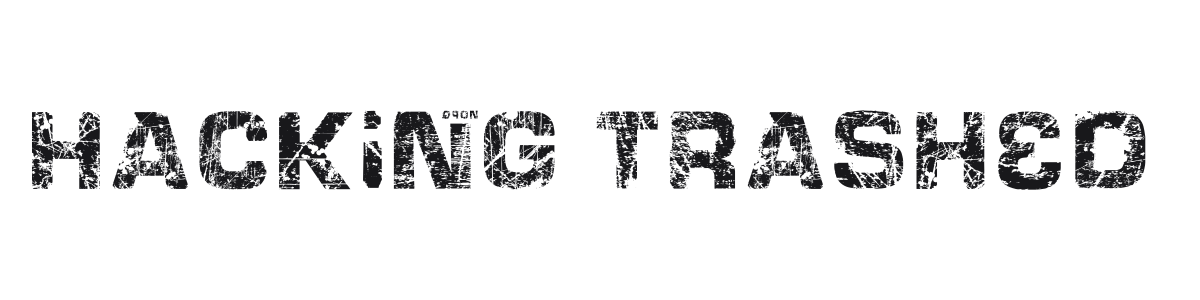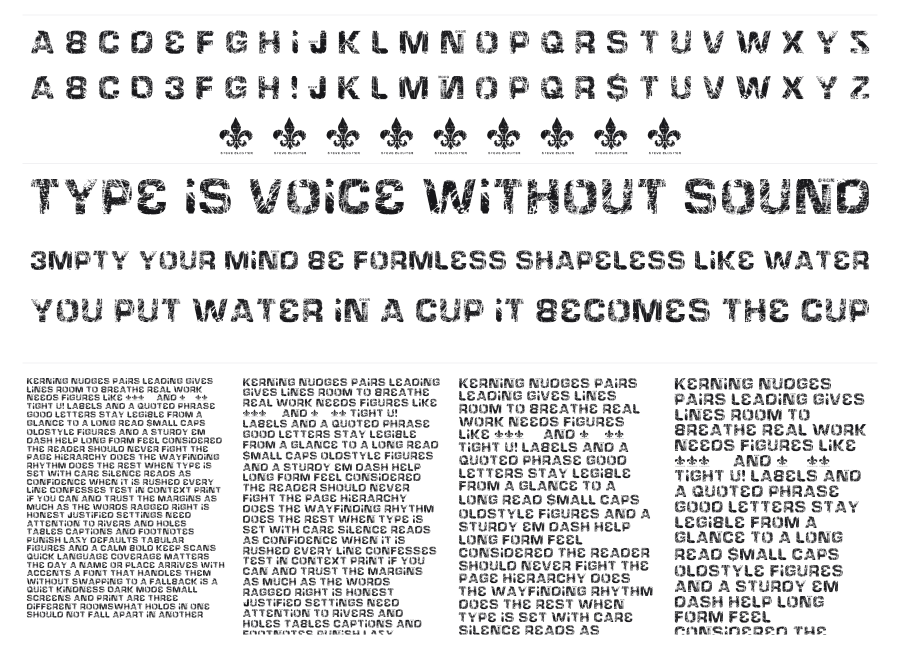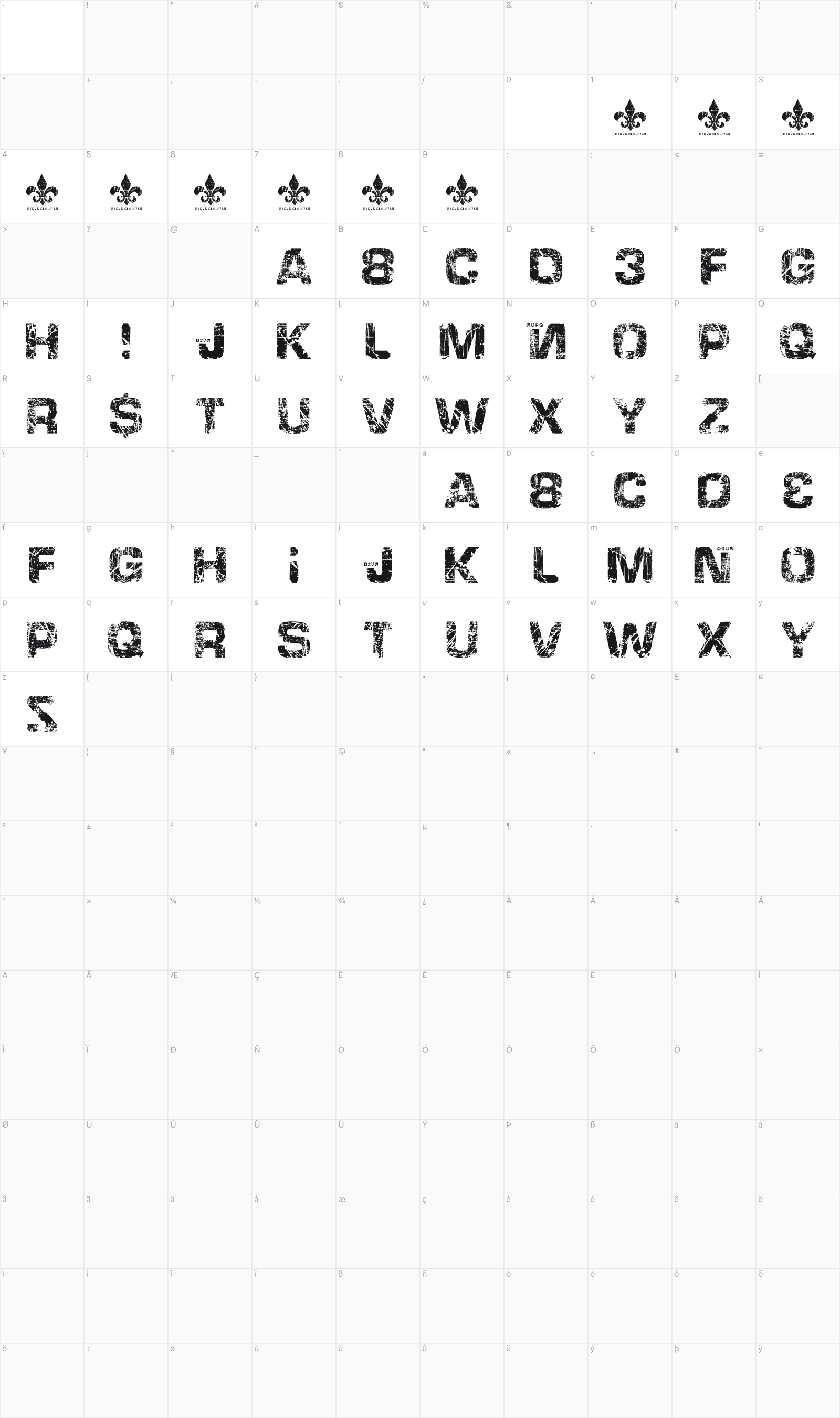
Hacking Trashed
Hacking Trashed is a heavy grotesque sans pushed through extreme distress treatment, leaving every character fractured and worn. The underlying structure is bold and wide, but the grunge texture dominates, giving it an aggressive, underground energy. Best used large where the erosion detail reads as intentional, not accidental.